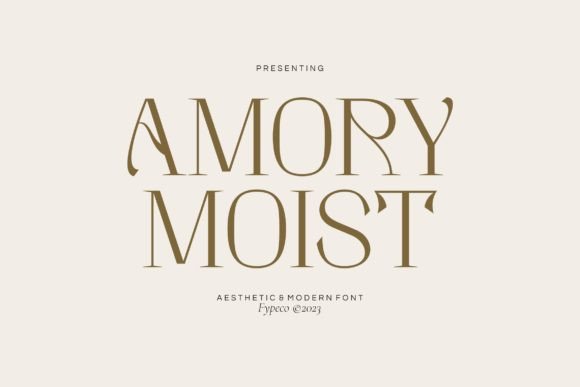
Behold the Amory Moist Font, a splendid creation from Fype Co. that breathes life into your artistic endeavors, transforming your designs into picturesque masterpieces. This enchanting font, adorned with alternates and ligatures, exudes a captivating blend of elegance and modernity, adding a touch of sophistication to your creative ventures.
Step into a realm of limitless possibilities with Amory Moist, where your words dance with grace and poise. Its sleek and refined design lends itself effortlessly to logos that command attention, quotes that resonate with heartfelt emotion, and blog posts that leave an indelible mark on your readers' minds. Unleash your inner artist and craft stunning branding projects that exude professionalism and creativity.
With Amory Moist, your designs will transcend the ordinary, capturing the essence of beauty and sophistication. Imagine your magazine imagery adorned with this font's delicate strokes, adding a touch of timeless charm to every page. Its versatility extends to typography projects, where it weaves a tapestry of words that captivate and inspire.
Amory Moist is the perfect companion for those who seek to make a lasting impression. Its PUA encoding ensures effortless access to a treasure trove of glyphs and swashes, empowering you to unleash your creativity without boundaries. Discover the transformative power of Amory Moist and watch as your designs blossom into works of art.